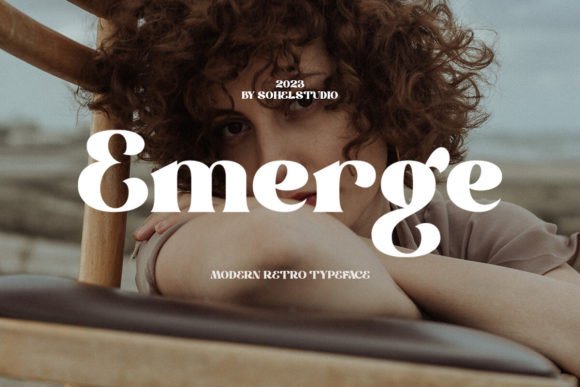
Introducing the mesmerizing 'Emerge Font' by Sohel Studio, the ultimate choice for those seeking the best font for magazine design. With its captivating and bold serif display style, this font is guaranteed to make a lasting impression.
The 'Emerge Font' stands out with its unique thick lines that exude strength and firmness. Every letter is carefully crafted to command attention and leave a powerful impact. Combining classic serif elements with modern touches, this font achieves a visually striking and bold appearance that is sure to captivate any audience.
Elegance meets modernity with the 'Emerge Font', making it the perfect choice for a wide range of graphic design projects. Whether you're working on magazine layouts, posters, or any other creative endeavor that demands an unforgettable visual appeal, this font will elevate your designs to new heights.
But it's not just the stunning aesthetics that set the 'Emerge Font' apart. Packed with creativity and emotion, this font brings your words to life and evokes a sense of sophistication. It effortlessly blends seamlessly into any project, adding an air of professionalism and style.